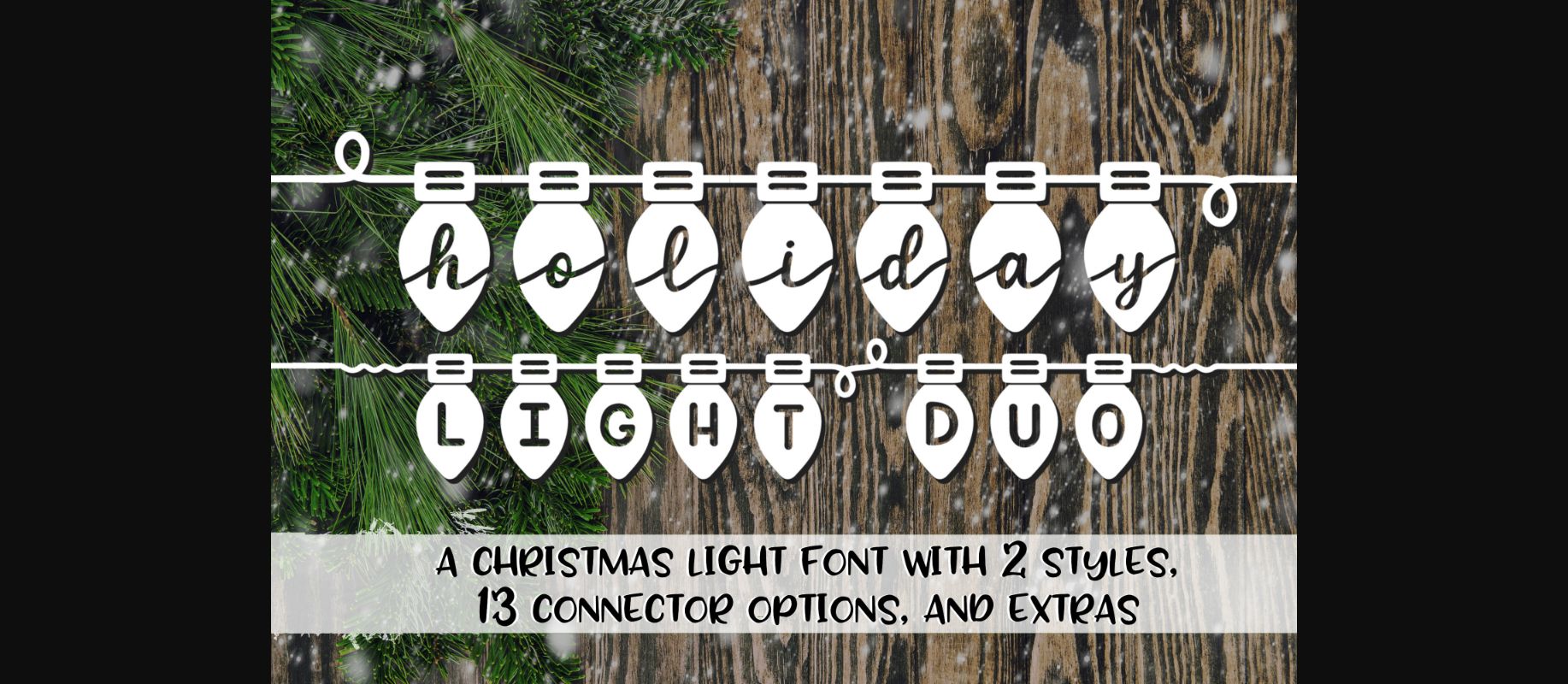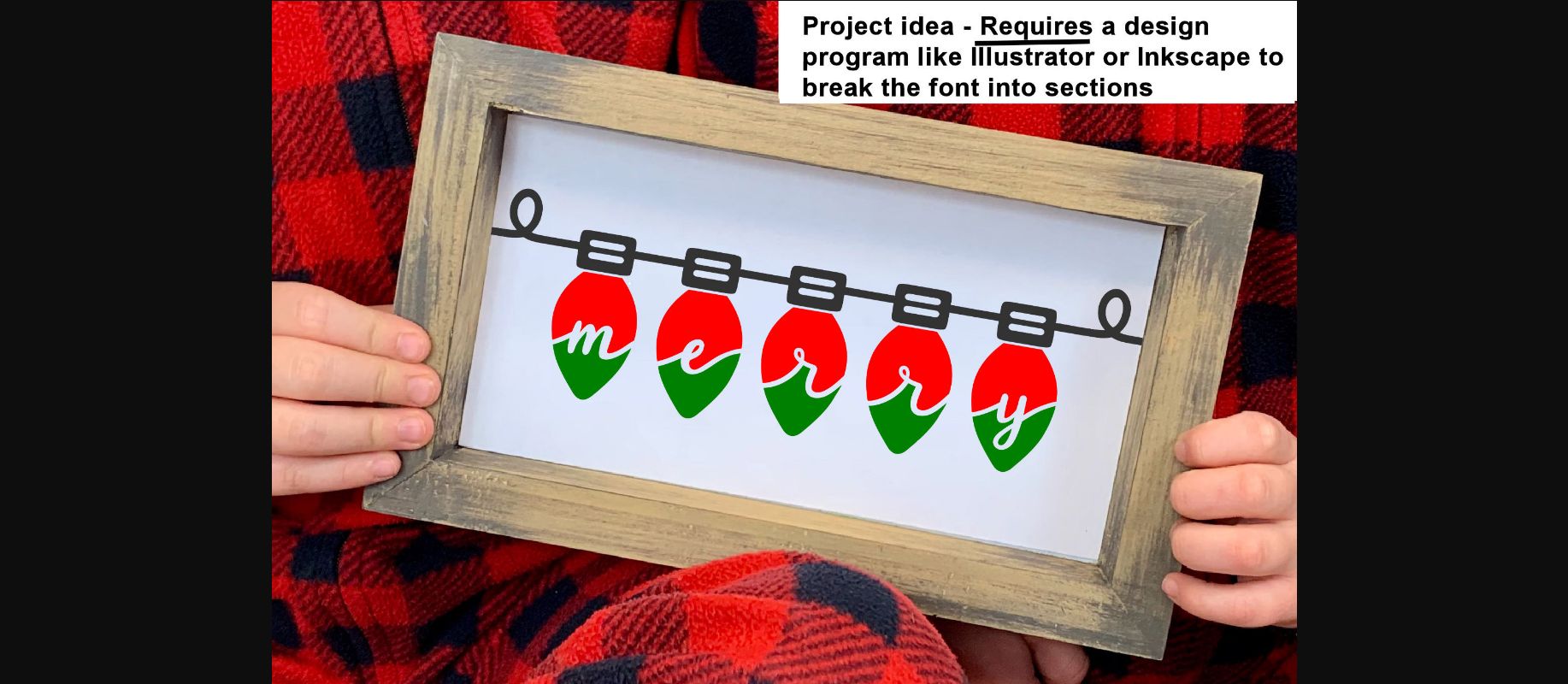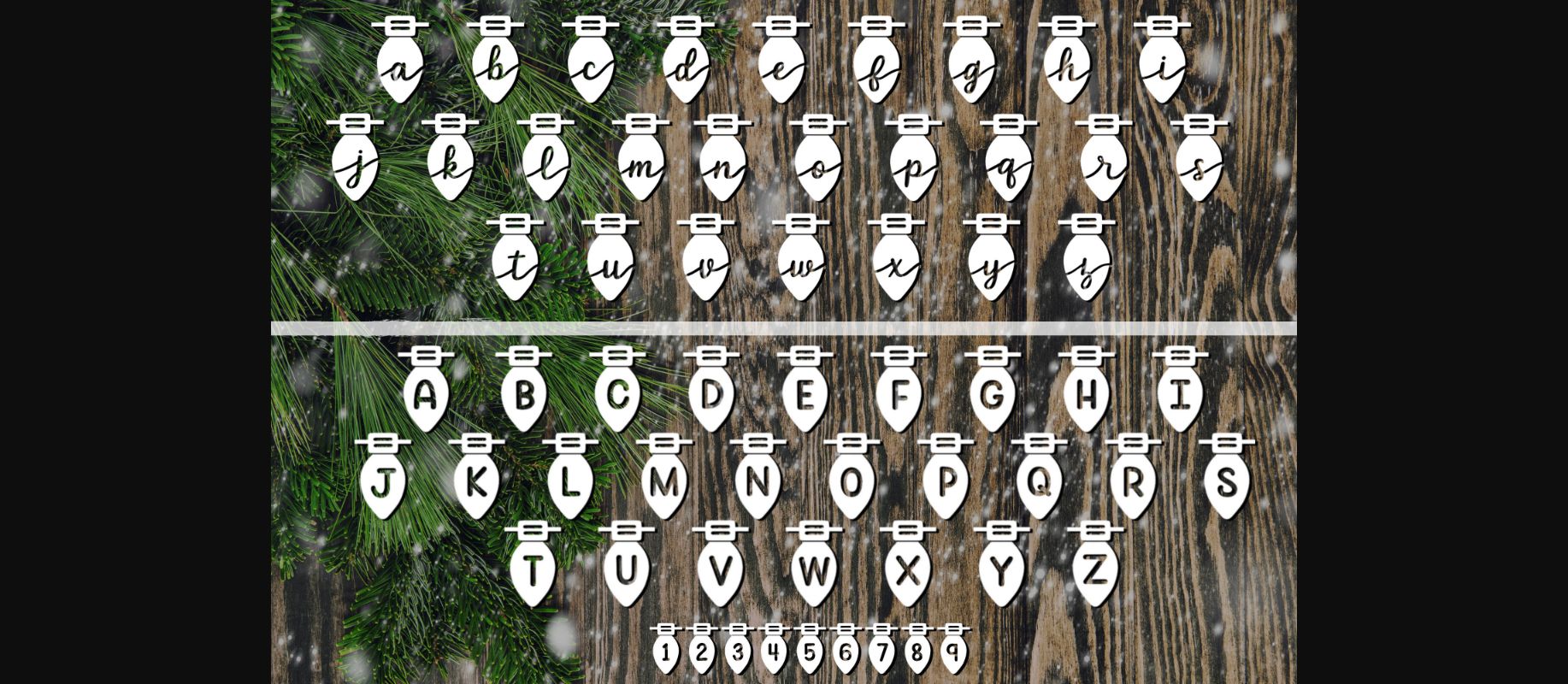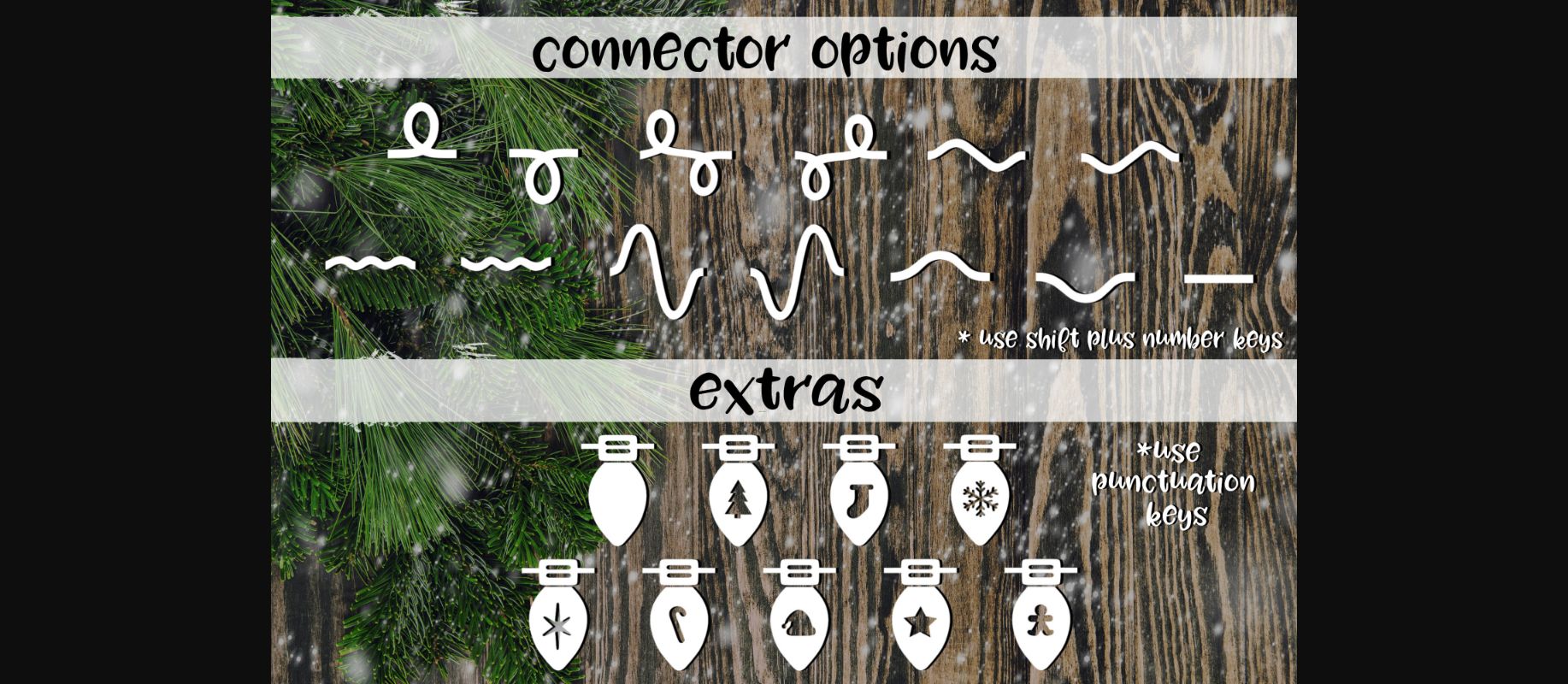
About Holiday Light Duo Font
Holiday Light Duo is two fonts in one!!!! With two styles, 13 connector options, and 8 extra holiday-themed lights, there are tons of possibilities!!!! This font is perfect for your Christmas and holiday projects!